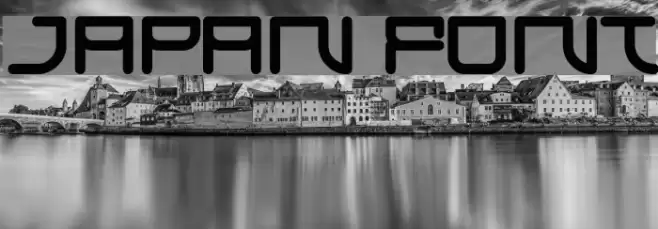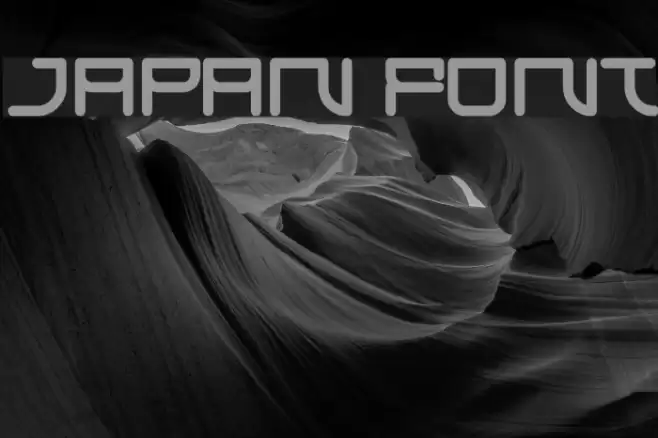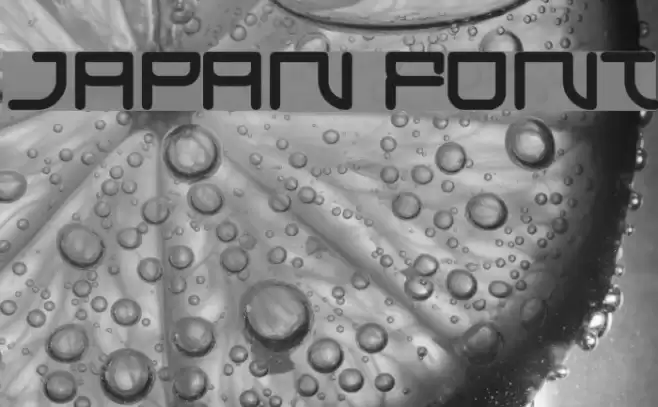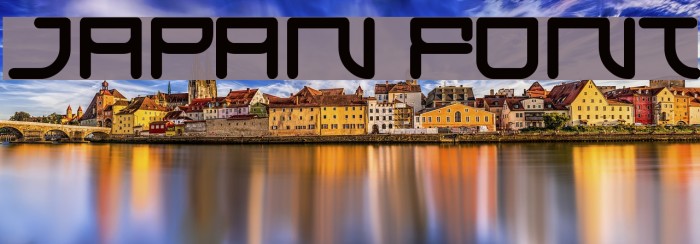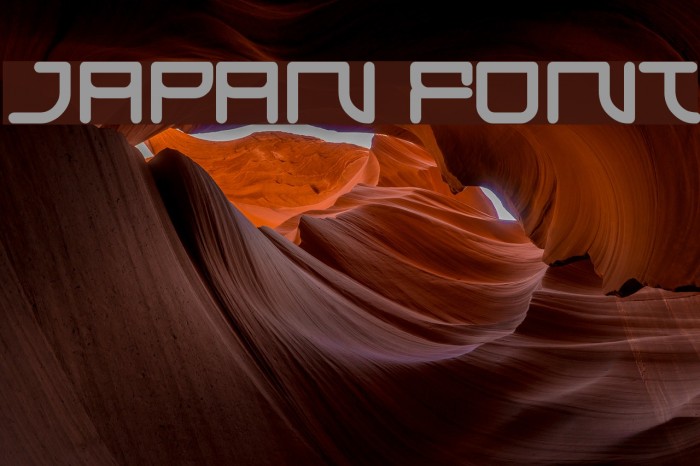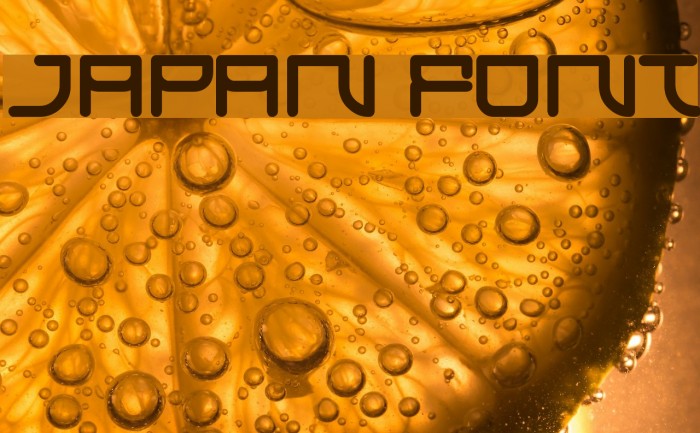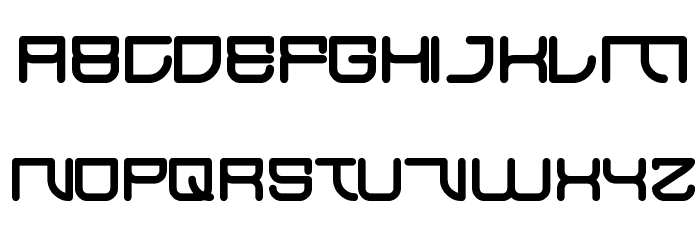
JAPAN Font
JAPAN Description
This font features a futuristic and geometric design, characterized by its rounded edges and uniform line thickness. The letters are constructed with a consistent stroke width, giving it a sleek and modern appearance. The design is minimalistic yet bold, with a distinct style that makes it stand out. The characters are evenly spaced, providing a clean and organized look. This font is ideal for projects that require a contemporary and tech-inspired aesthetic, such as branding for technology companies, modern product packaging, or digital interfaces.
A futuristic, geometric font with rounded edges and uniform line thickness from Uncategorized fonts.
- Proposed Projects: Ideal for tech branding, modern packaging, and digital interfaces.
- Use Case: Logos, Headlines